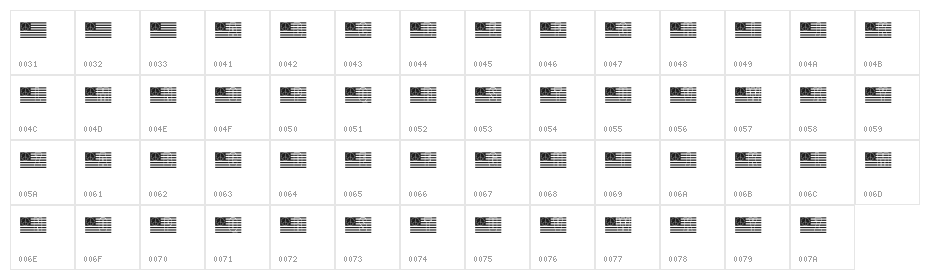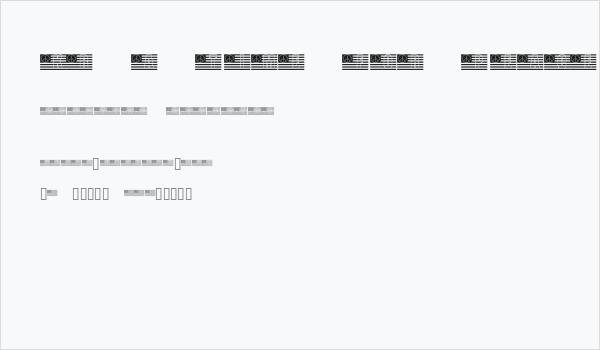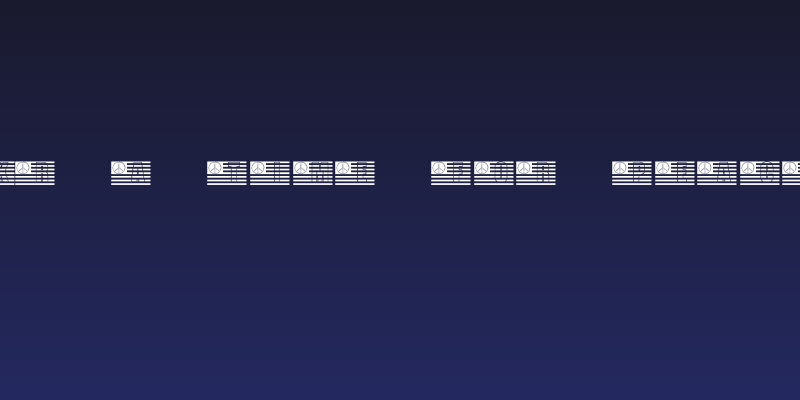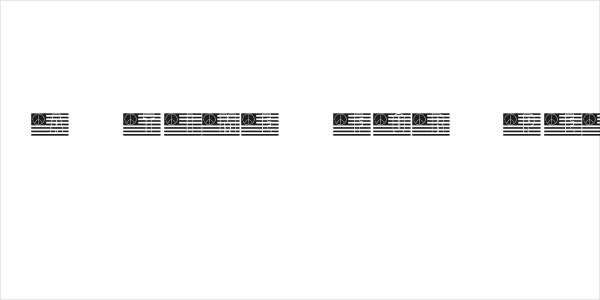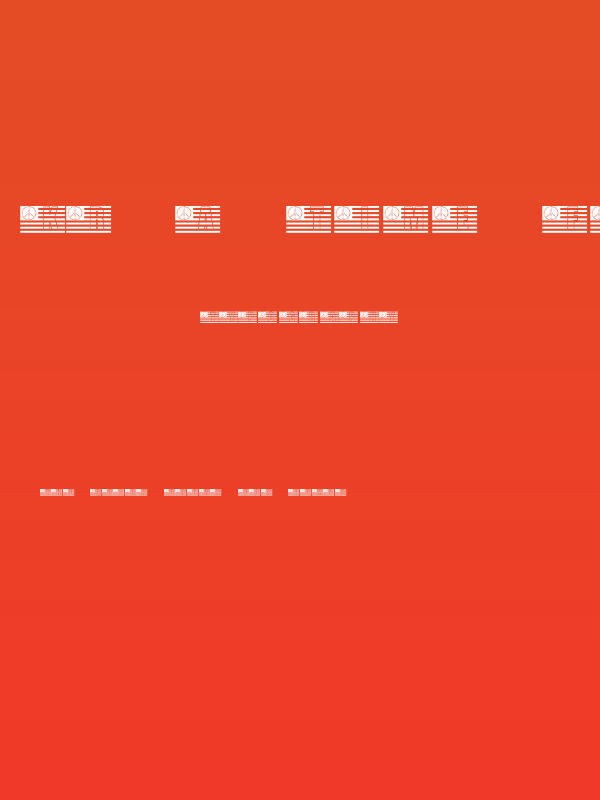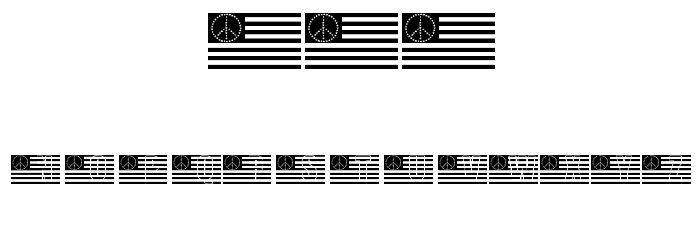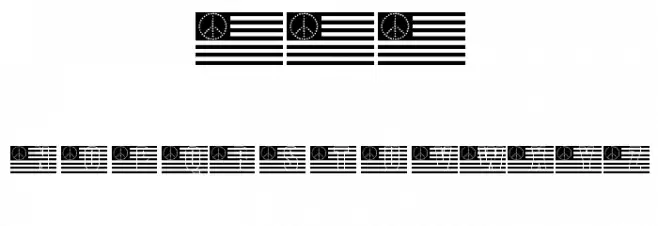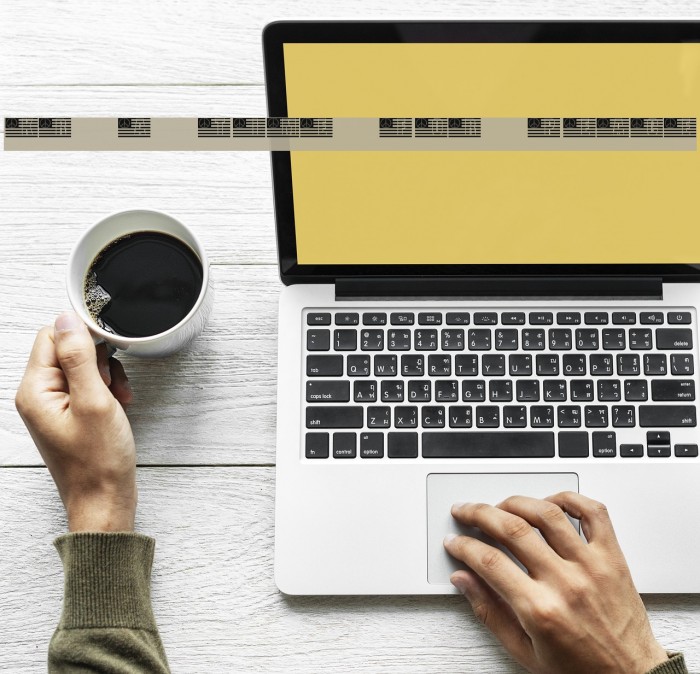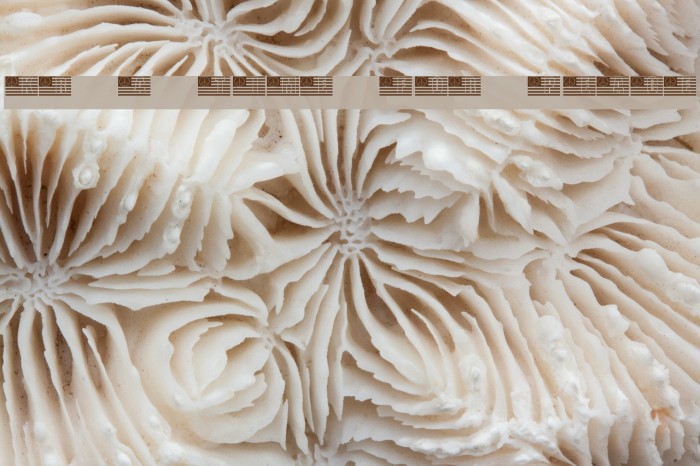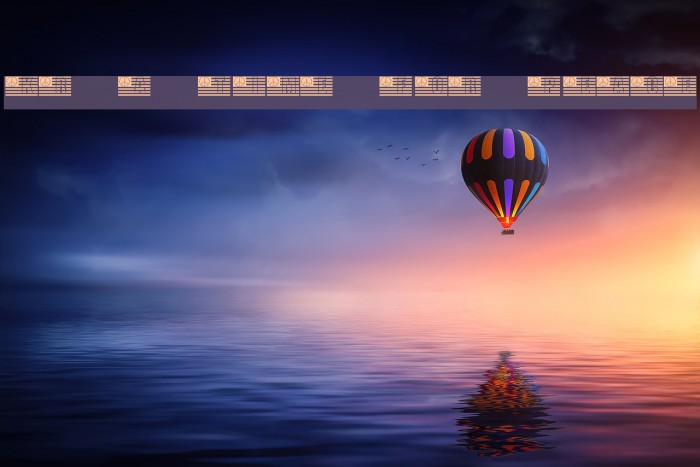
KR A Time For Peace Font
This design features a unique and symbolic representation, where each character is replaced by a peace symbol integrated into a flag-like design. The overall appearance is more graphical than textual, emphasizing a message of peace and unity. The repetitive use of the peace symbol across all characters creates a cohesive and thematic visual experience. This design is not a traditional font but rather a decorative representation meant to convey a specific message.
| Use Case | Logos, Posters, Artistic Projects |
| Proposed Projects | Ideal for posters, banners, or campaigns promoting peace and unity. Can be used in artistic projects or as a thematic element in design work focused on social messages. |